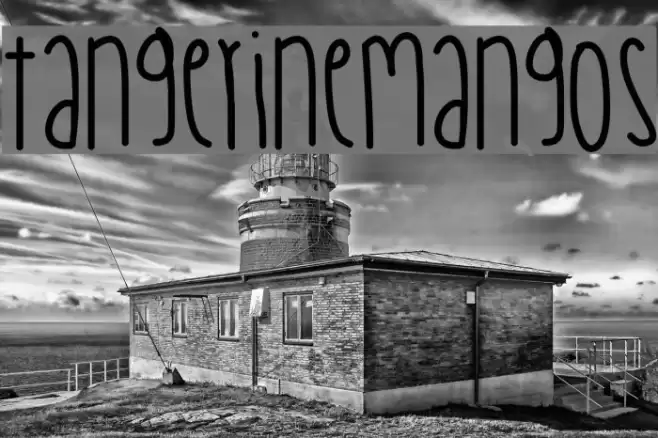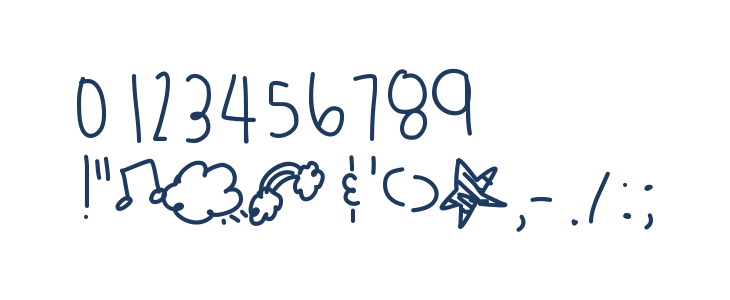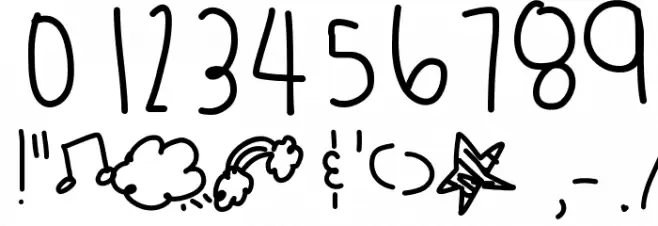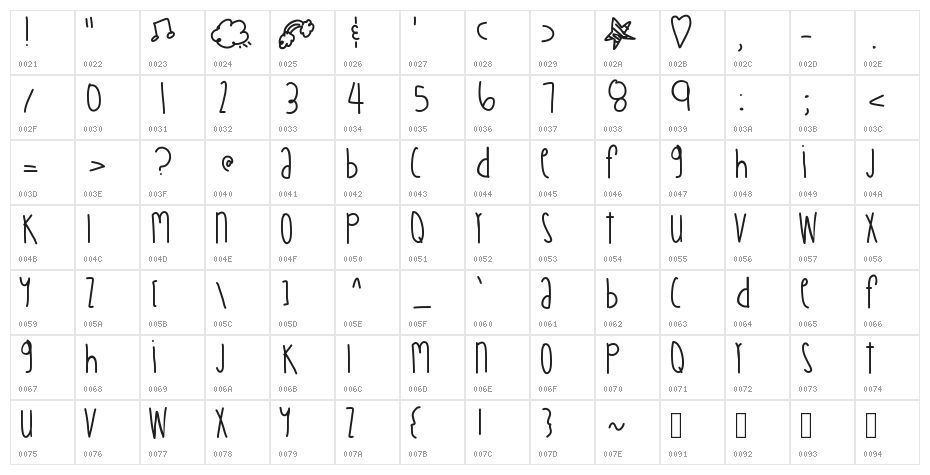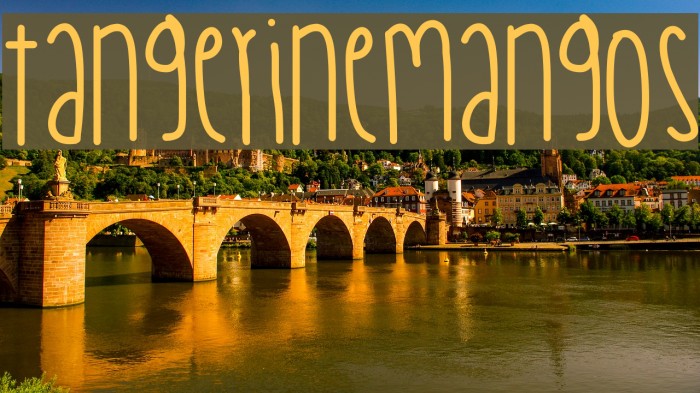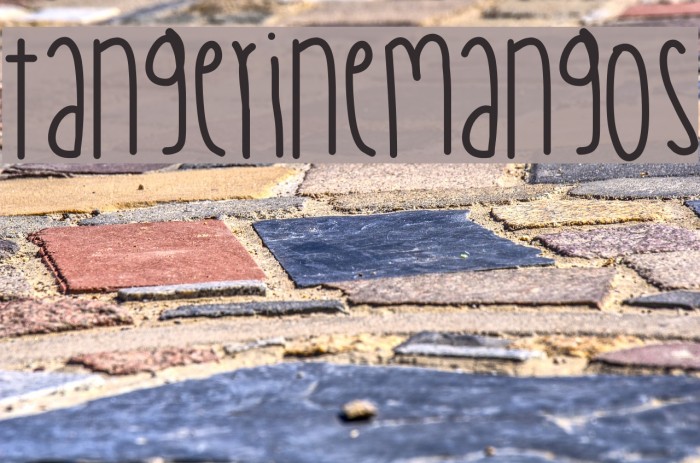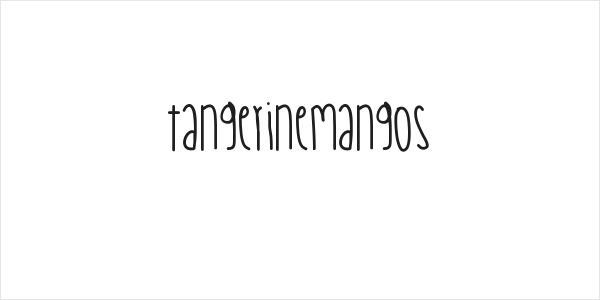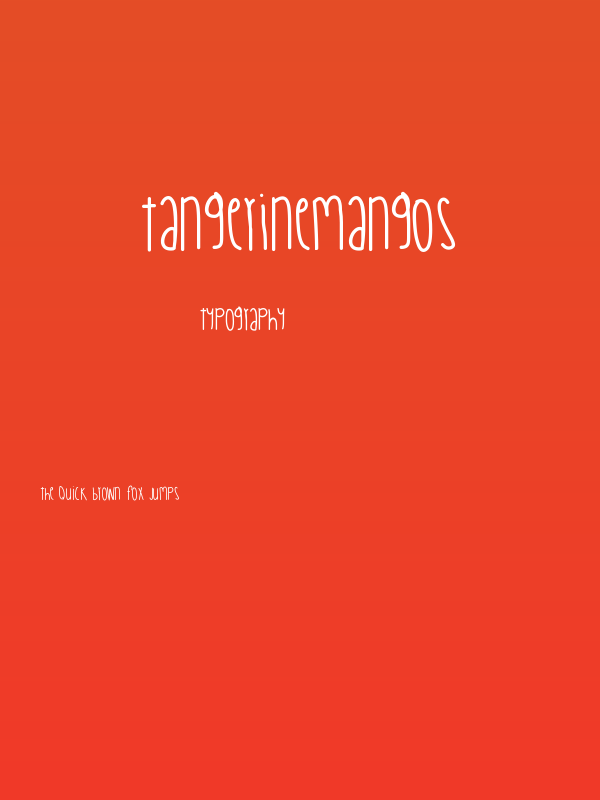
TangerineMangos Font
TangerineMangos Description
This playful and whimsical font features tall, narrow characters with a hand-drawn appearance, giving it a casual and friendly vibe. The letters are slightly irregular, adding to the charm and uniqueness of the style. The font includes both uppercase and lowercase letters, numbers, and a variety of special characters, each maintaining the same quirky and informal aesthetic. The strokes are consistent in width, providing a uniform look across all characters. This font is perfect for projects that require a touch of fun and creativity, such as children's books, greeting cards, or playful branding.
A playful, hand-drawn font with tall, narrow characters and a whimsical style from Uncategorized fonts.
- Proposed Projects: Ideal for children's books, greeting cards, playful branding, and creative projects.
- Overall Style: Whimsical